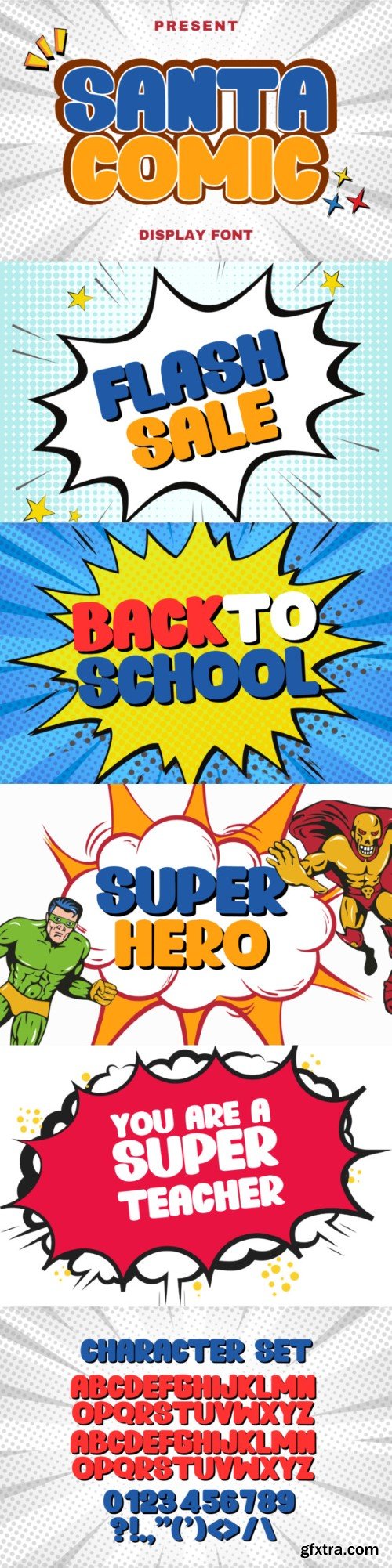
圣诞 comic 字体
Santa Comic is a bold, fun and bold display font. It’s great for conveying any message with confidence, authenticity, and charm. Use it for comics, cartoons, magazine covers, games, or anything that needs a cheerful touch.